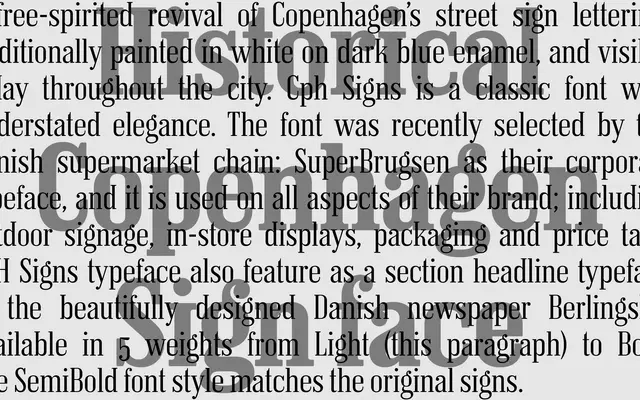
CPH Signs
A revival of Copenhagen's hand-painted enamel street sign lettering, adapted into a five-weight family with understated, calligraphic warmth.
Drawn from the white-on-dark-blue enamel signs still visible across Copenhagen, CPH Signs translates a civic lettering tradition into a usable typeface across five weights from Light to Bold. Its calligraphic origins give it a quiet elegance that has attracted both brand and editorial use, including SuperBrugsen's corporate identity and headline setting in the Danish newspaper Berlingske. The absence of italics keeps it focused, best suited to signage, packaging and display work where its heritage reads clearly.
Revived from hand-painted Copenhagen street sign lettering, the letterforms carry a humanist warmth and calligraphic origin typical of mid-century European signage traditions, placing it firmly in the humanist sans category.